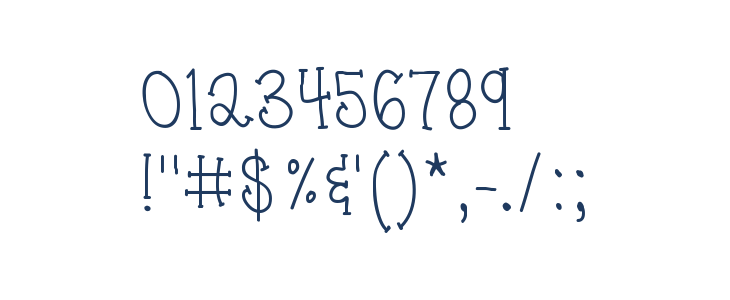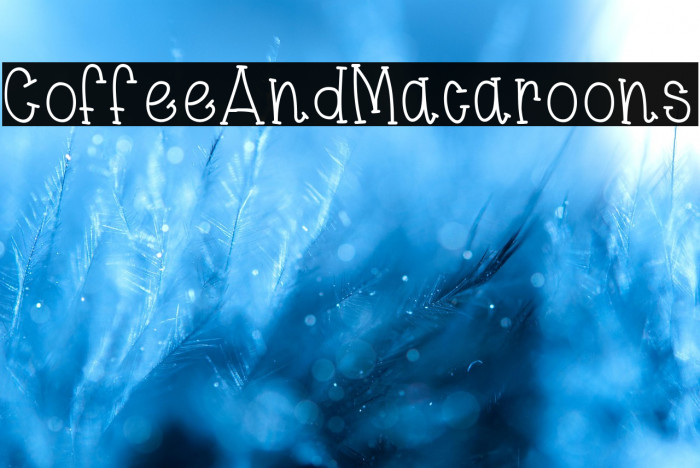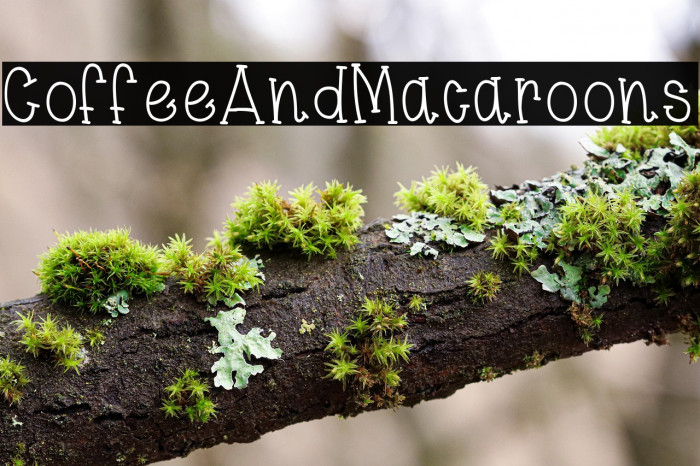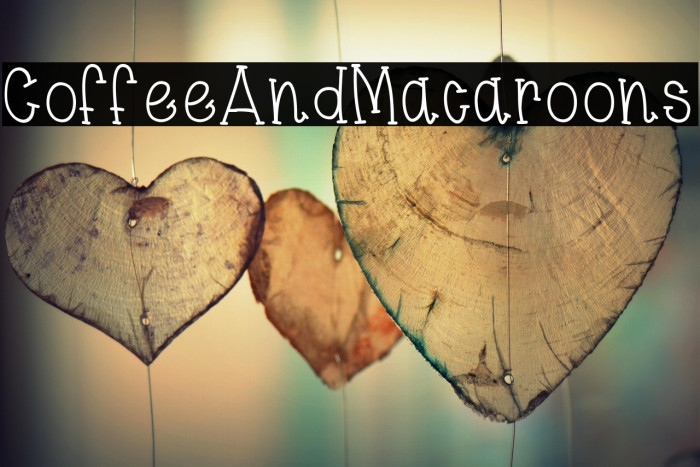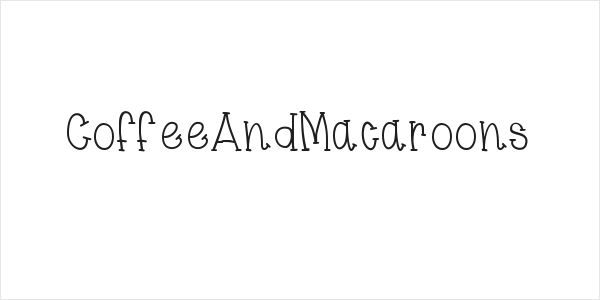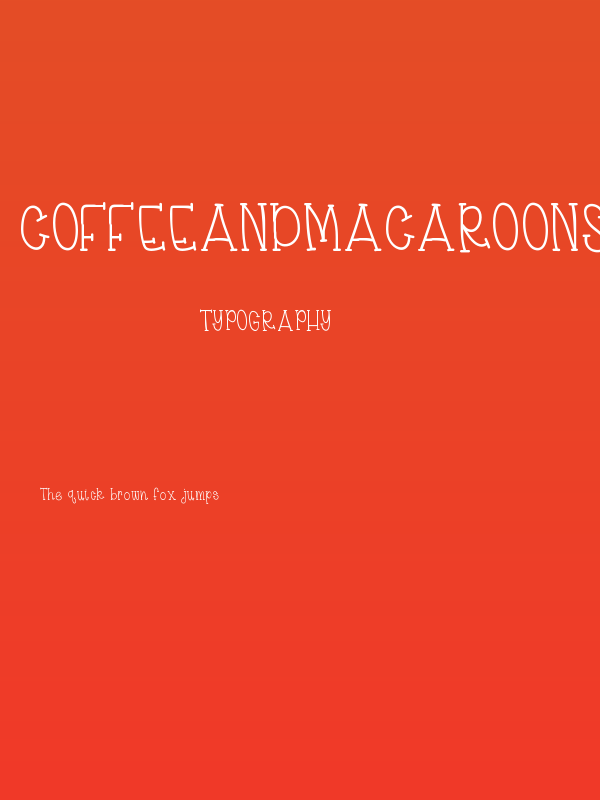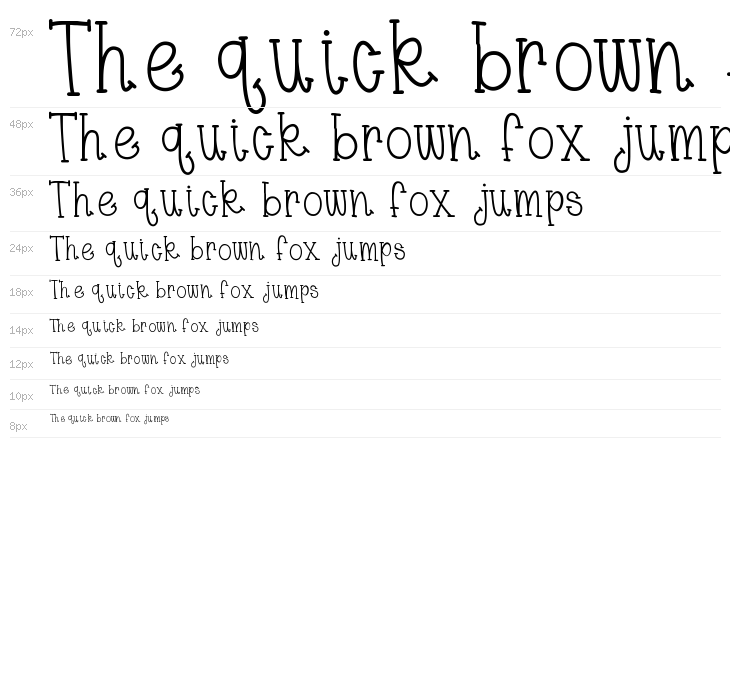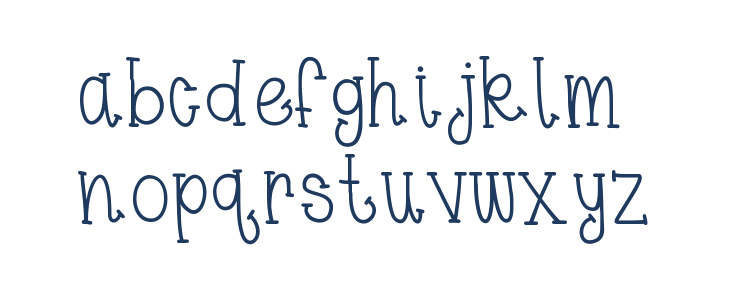
CoffeeAndMacaroons Font
CoffeeAndMacaroons Description
This playful and whimsical font features a handwritten style with a casual and friendly appearance. The letters are slightly irregular, giving it a charming and approachable feel. The strokes are consistent in width, with rounded edges that add to its informal character. The uppercase and lowercase letters are distinct yet harmonious, maintaining a cohesive look throughout. Numbers and special characters are designed with the same playful touch, making them suitable for creative projects. The overall design is light-hearted and perfect for adding a personal touch to any text.
| Overall Style | Whimsical |
| Use Case | Headlines, Logos, Invitations |
| Proposed Projects | Ideal for children's books, greeting cards, invitations, and playful branding projects. |